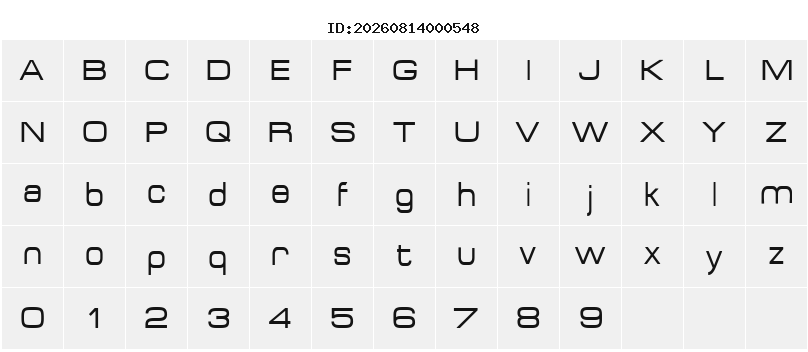
About sad.ttf
sad.ttf is a modern, elegant sans-serif font designed for ultimate readability and visual harmony. Perfect for branding, headlines, web design, and print materials.